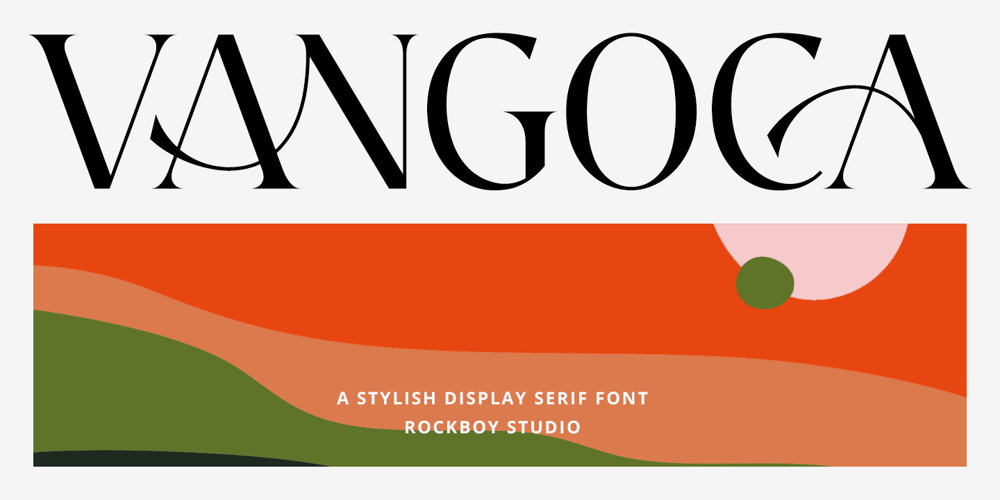
Vangoca
Vangoca font
Vangoca Font Family was designed by Hayinah and published by Rockboys Studio. Vangoca contains 1 styles and family package options. Vangoca is an elegant, thin lettered and distinct serif font. Suitable to a wide variety of designs due to its neat and clean style, this font has the potential to become your favorite go-to font, no matter the occasion!